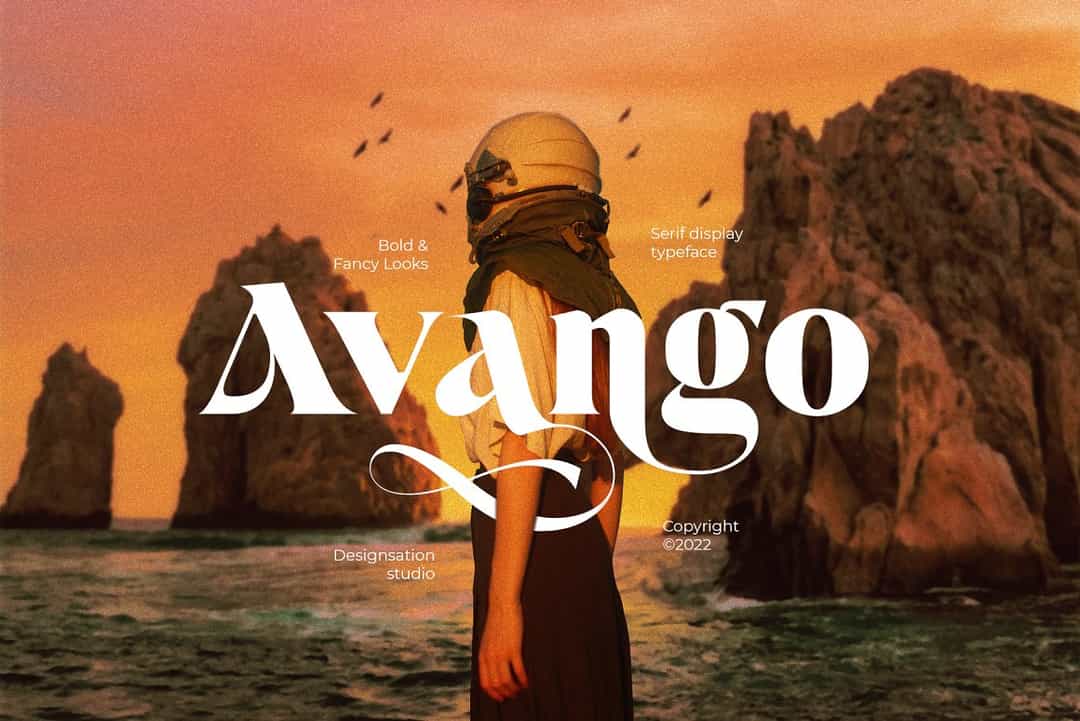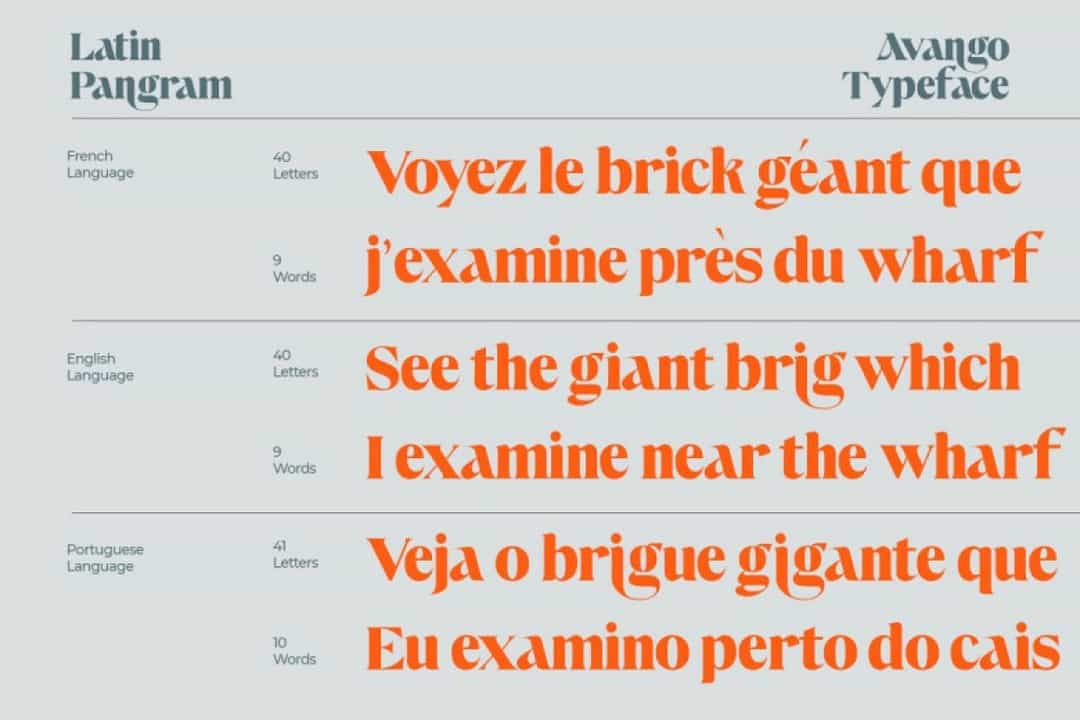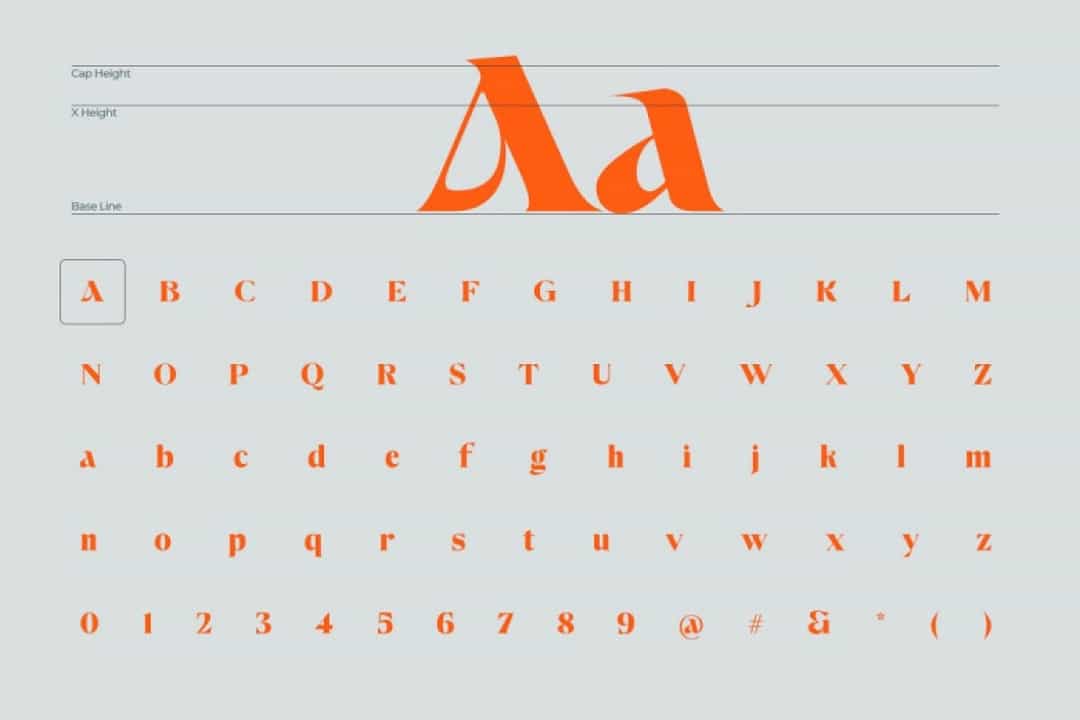
Avango Serif Font is available in an impressive weight and features calligraphic details that make this font both visually stunning and inviting. In addition, its optional ligatures add an eye-catching and mesmerizing element when used as a headline, logo or large title to brand your venture’s identity.